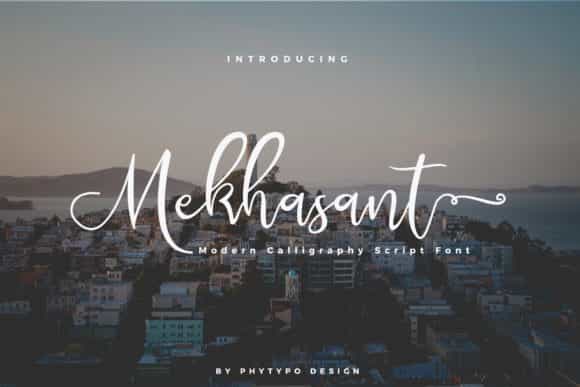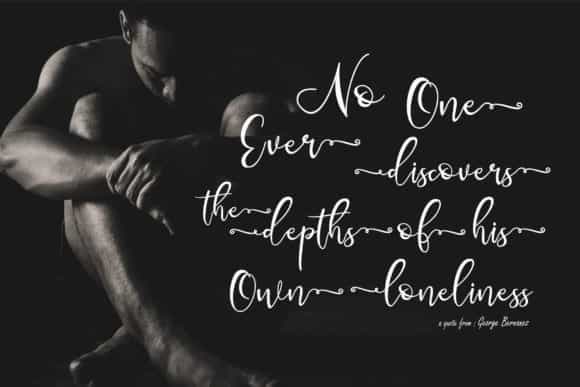
Discover Mekhasant Handwritten Font, part of the Calligraphy Handwritten collection—a versatile and unique font perfect for adding a personal touch to your projects. Download it for free and enjoy crafting designs with style, from invitations to social media posts. This font is available exclusively for personal use, giving you the freedom to create without limits. Unlock your creativity with Mekhasant Handwritten Font today!
It can be indicated, therefore, that Mekhasant font is a modern calligraphy script font. Discover why Playtech loves the design: romantic look and feel! It is branded for Phytypo Design and is open for free download for personal uses. The free version type all the uppercase, the lowercase, and a few other characters apart from the number one.